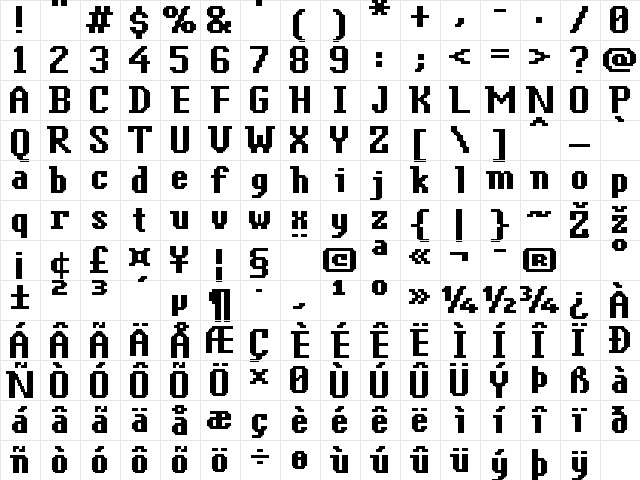
FFF Antigua Bold Regular
Design Context for FFF Antigua Bold Typeface
FFF Antigua Bold takes a measured approach to typography — its balanced proportions and neutral character make it a reliable workhorse for both digital and print work. Its bold stroke weight gives it real presence on the page.